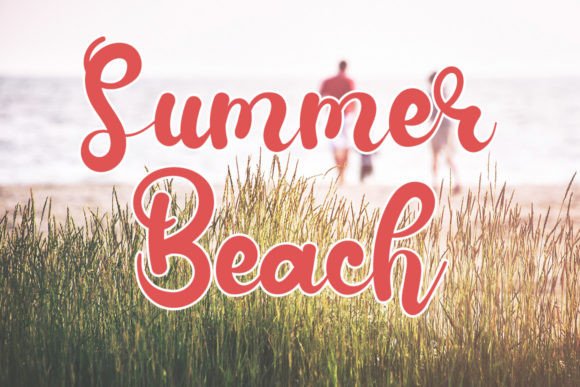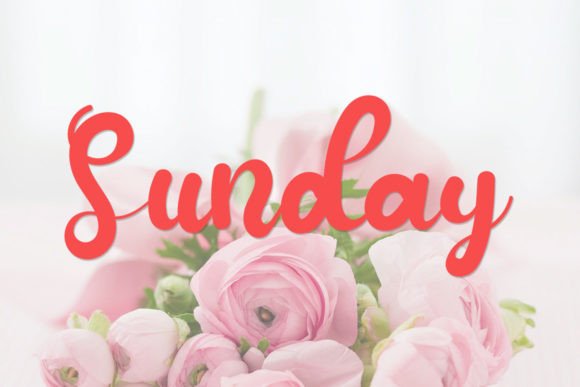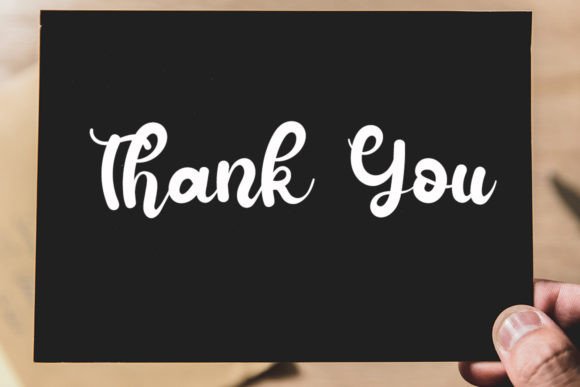
Discover the Charm of Chating Font: Elevate Your Designs with Elegance and Joy
In the world of typography, fonts play a crucial role in conveying messages, expressing emotions, and creating visual identities. Among the vast array of fonts available, Chating Font stands out for its unique blend of beauty, sweetness, and versatility. This article delves into the characteristics of Chating Font, exploring its features, uses, and benefits for designers and crafters looking to add a touch of elegance and joy to their projects.
The Essence of Chating Font
Chating Font is described as a beautiful and sweet font, embodying freshness, cleanliness, and elegance. Its design is meticulously crafted to cater to a wide range of projects, from formal and professional to informal and personal. Whether you’re working on a branding campaign, a wedding invitation, or a personal blog, Chating Font promises to enhance your designs with its unique charm.
Key Features of Chating Font
- Fresh and Clean Design: Chating Font boasts a contemporary design that feels both modern and approachable. Its clean lines and uncluttered appearance make it highly legible across various mediums.
- Elegant and Sophisticated: The elegance of Chating Font is undeniable, making it an excellent choice for projects that require a touch of sophistication and refinement.
- Versatility: One of the standout features of Chating Font is its versatility. It seamlessly transitions between formal and informal contexts, ensuring that your designs always feel appropriate and engaging.
- Joyful Touch: Perhaps most notably, Chating Font adds an incredibly joyful touch to designs. Its sweet and charming appearance can evoke positive emotions, making it perfect for projects aimed at younger audiences or those seeking to convey happiness and warmth.
Applications of Chating Font
The versatility of Chating Font makes it suitable for a myriad of applications. Here are some of the areas where this font can truly shine:
- Branding and Logos: Use Chating Font to create memorable and impactful brand identities that stand out for their elegance and approachability.
- Wedding and Event Invitations: The font’s elegance and joyful touch make it an excellent choice for wedding invitations, birthday cards, and other event announcements.
- Digital and Print Media: Whether you’re designing a website, a brochure, or a social media graphic, Chating Font can enhance your content with its clean and modern aesthetic.
- Personal Projects: For bloggers, crafters, and hobbyists, Chating Font offers a beautiful way to personalize your digital and print projects, adding a layer of sophistication and charm.
Tips for Using Chating Font Effectively
To make the most of Chating Font, consider the following tips:
- Pair with Complementary Fonts: For maximum impact, pair Chating Font with fonts that complement its elegance and freshness. A contrasting font can help highlight key information or create visual hierarchy.
- Experiment with Colors: While Chating Font looks stunning in classic black and white, don’t be afraid to experiment with colors that match your project’s theme or brand palette.
- Consider Context: Always consider the context in which your design will be viewed. Ensure that Chating Font aligns with the tone and purpose of your project.
Chating Font is a remarkable addition to any designer’s toolkit, offering a unique blend of beauty, elegance, and joy. Its versatility, legibility, and charm make it an ideal choice for a wide range of projects. By incorporating Chating Font into your designs, you can create visually stunning and emotionally engaging content that resonates with your audience. Whether you’re a professional designer or a crafting enthusiast, Chating Font is sure to inspire and elevate your creative endeavors.